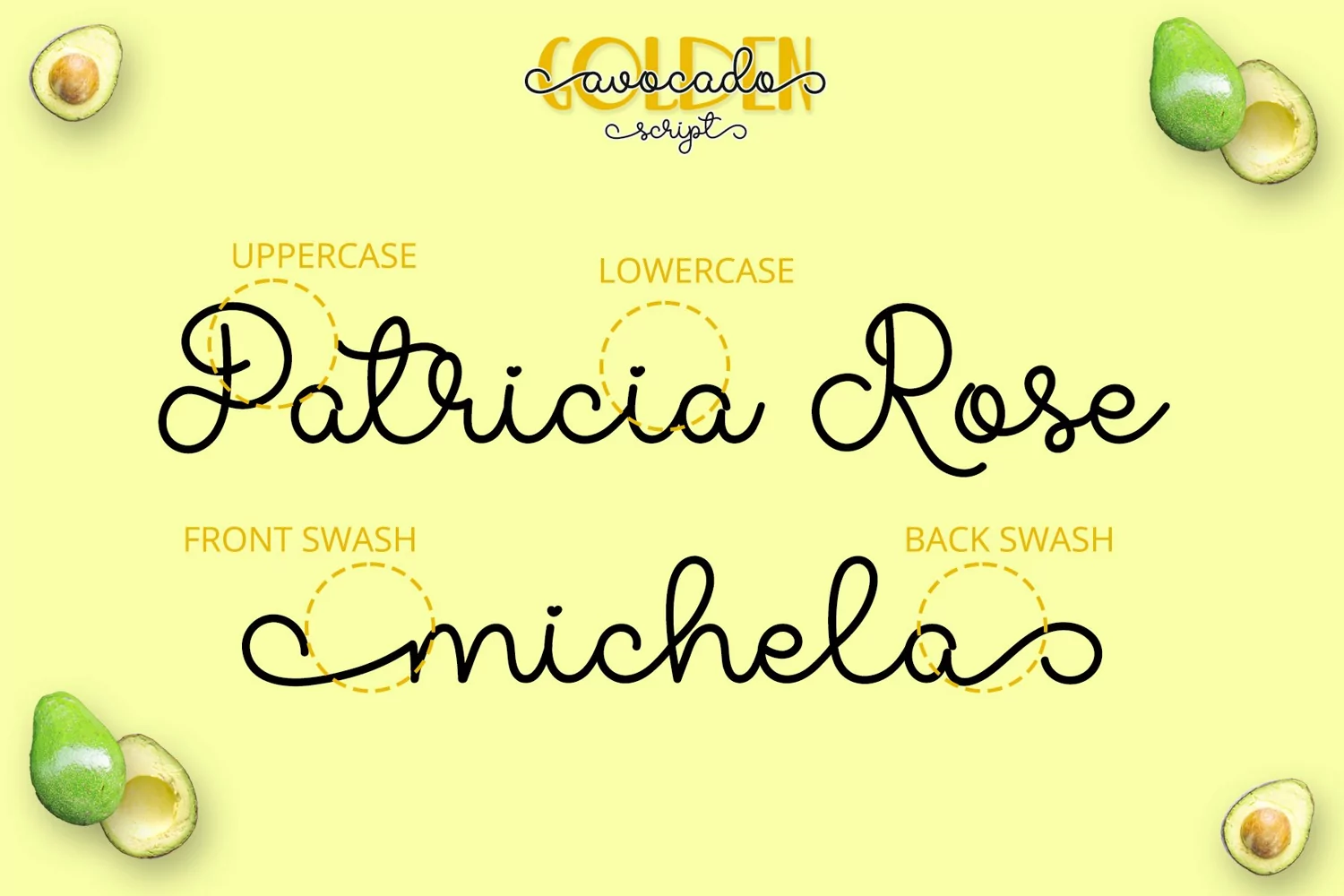
Golden Avocado - A Font Duo
Golden Avocado is sweet, elegant, and versatile font duo. This font is perfect for wide ranges of design, such as t-shirt design, greeting cards, sticker, logo, branding, and many others.